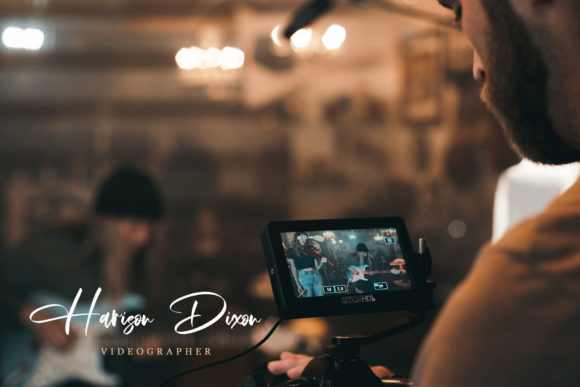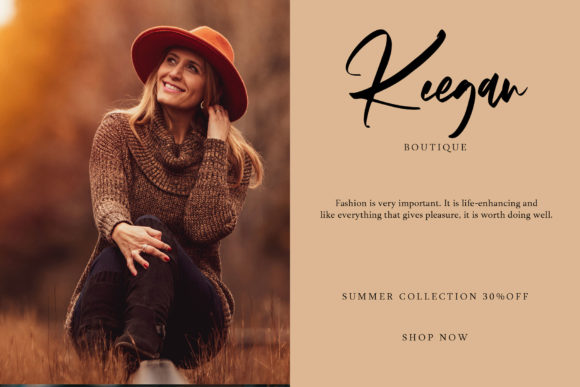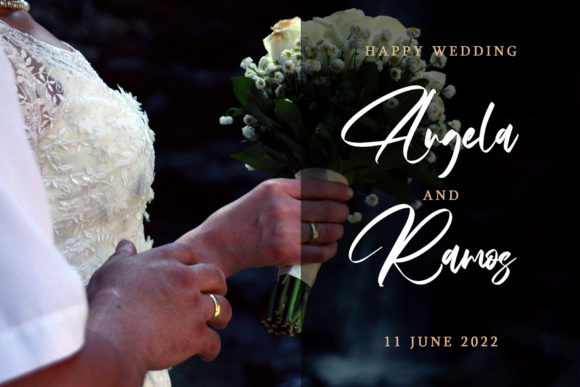
About The Cestiennet Font
The Cestiennet is a dainty and stylish handwritten font. Its distinct and beautiful letters make this font a masterpiece. Fall in love with its incredibly versatile style and use it to create lovely designs!